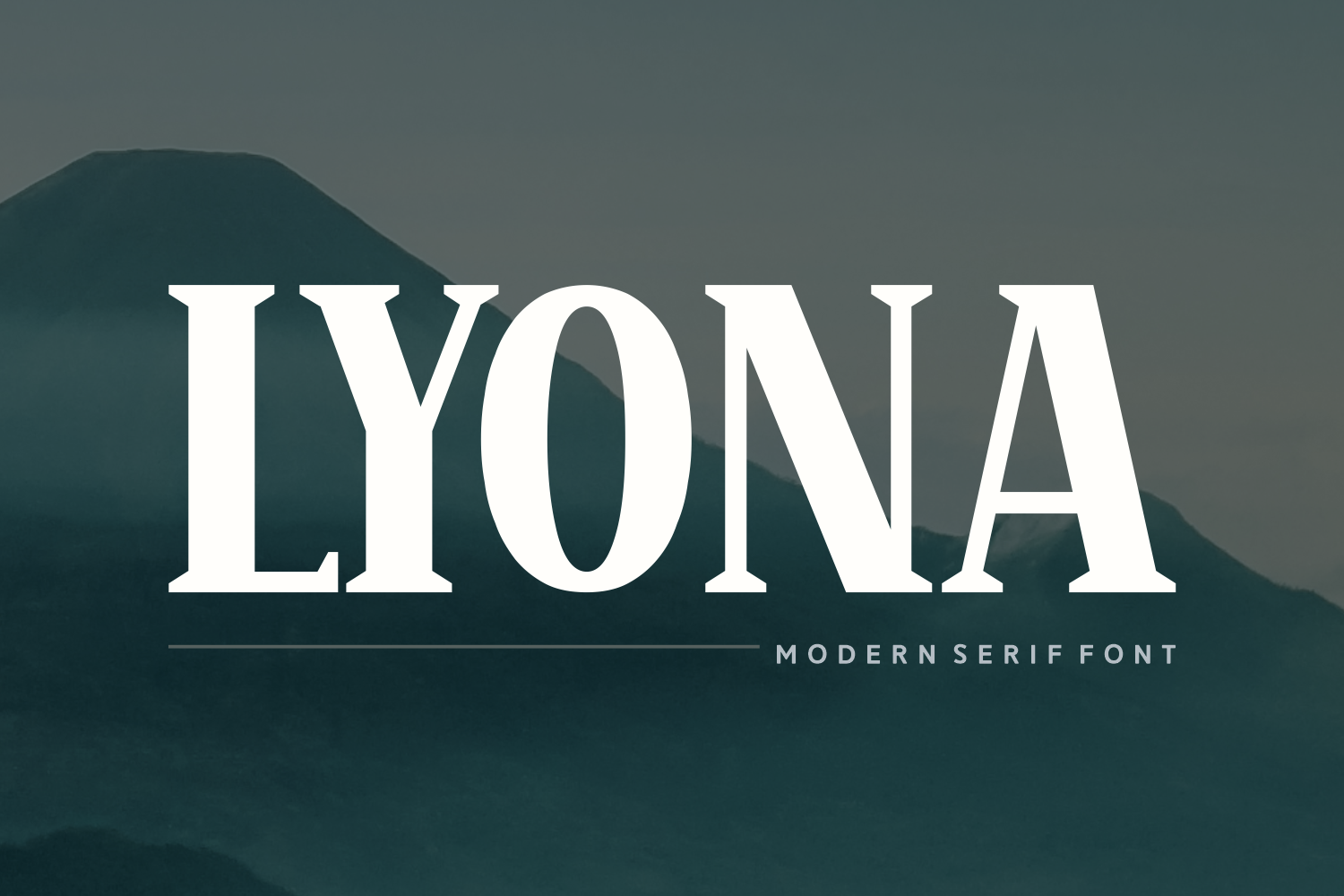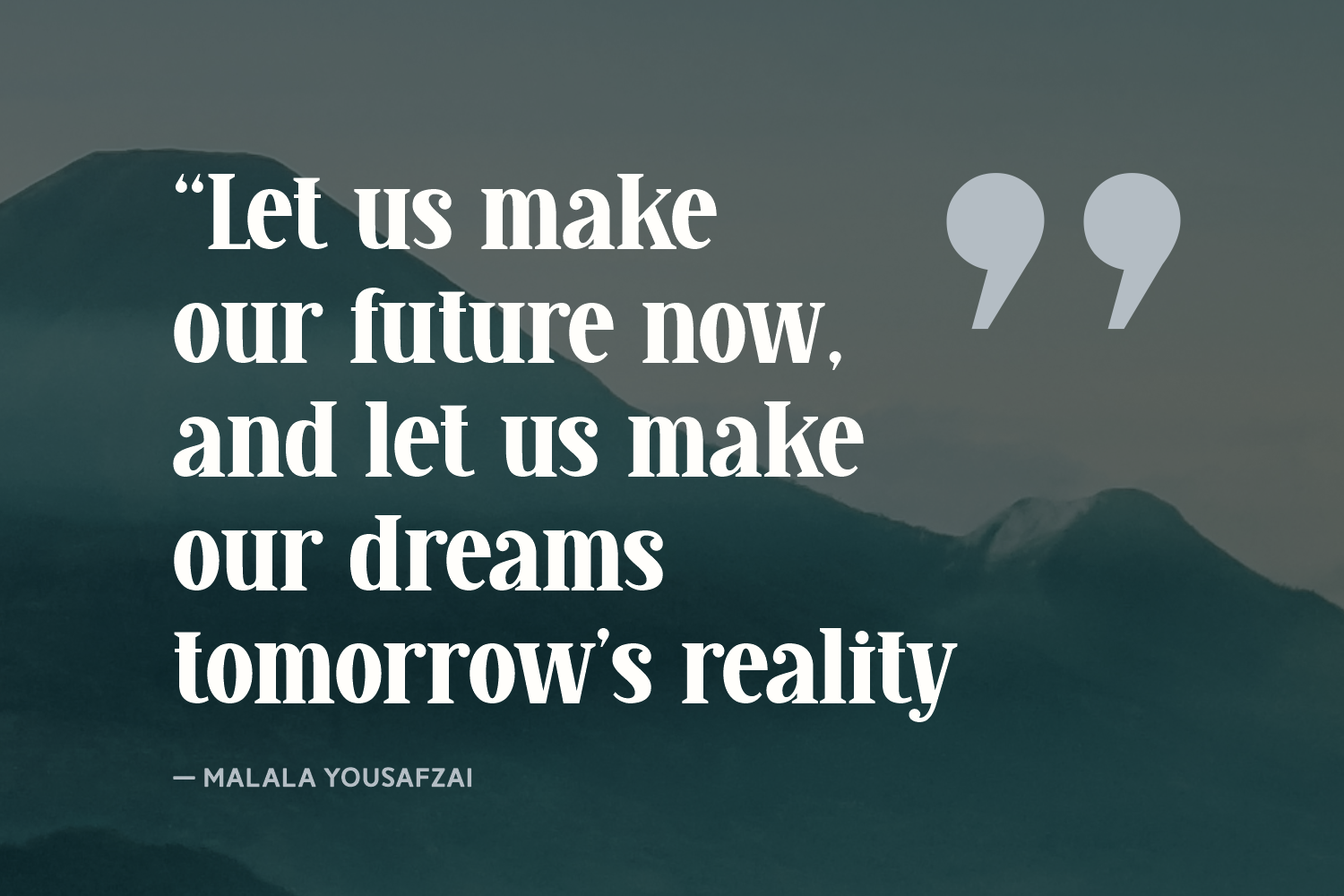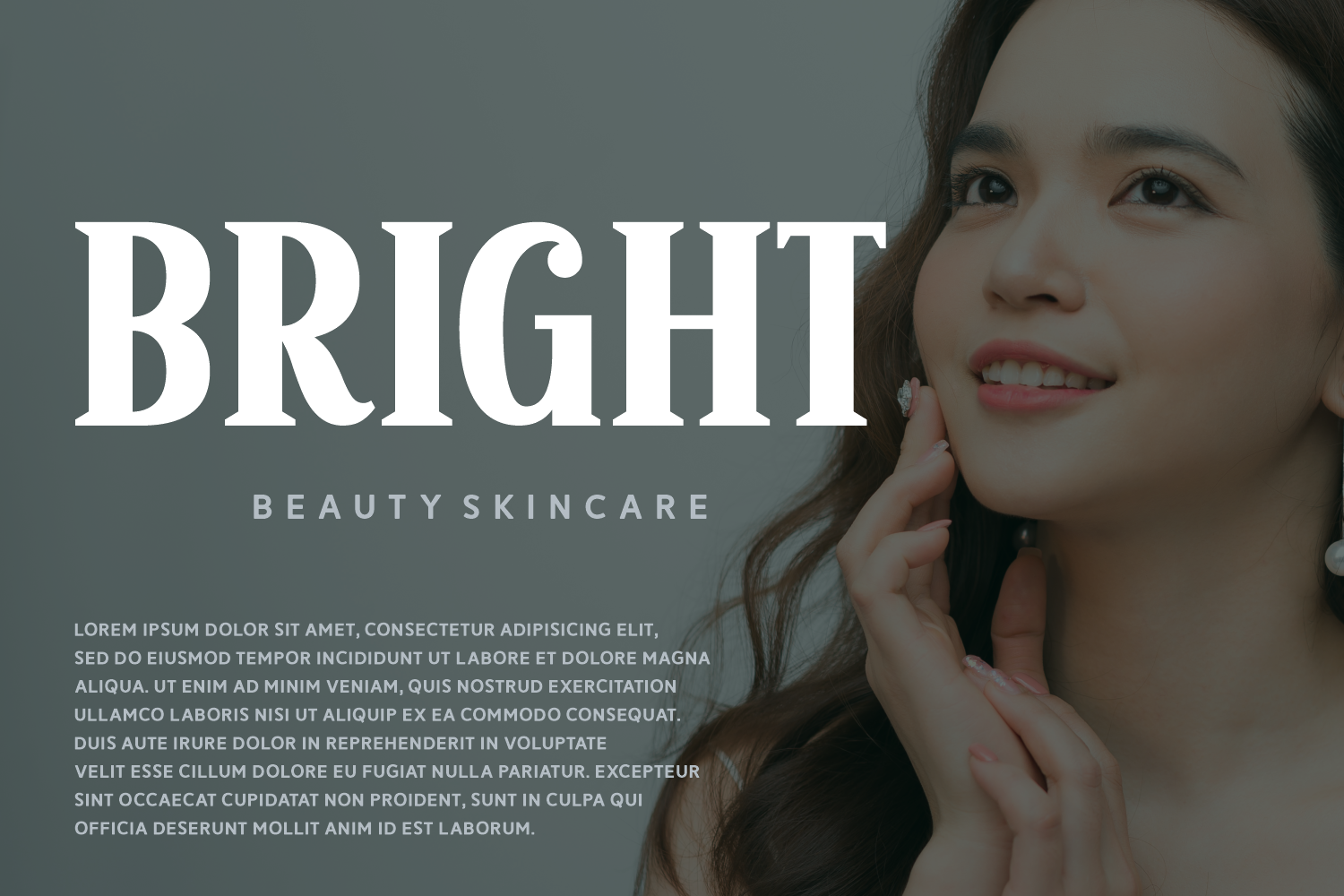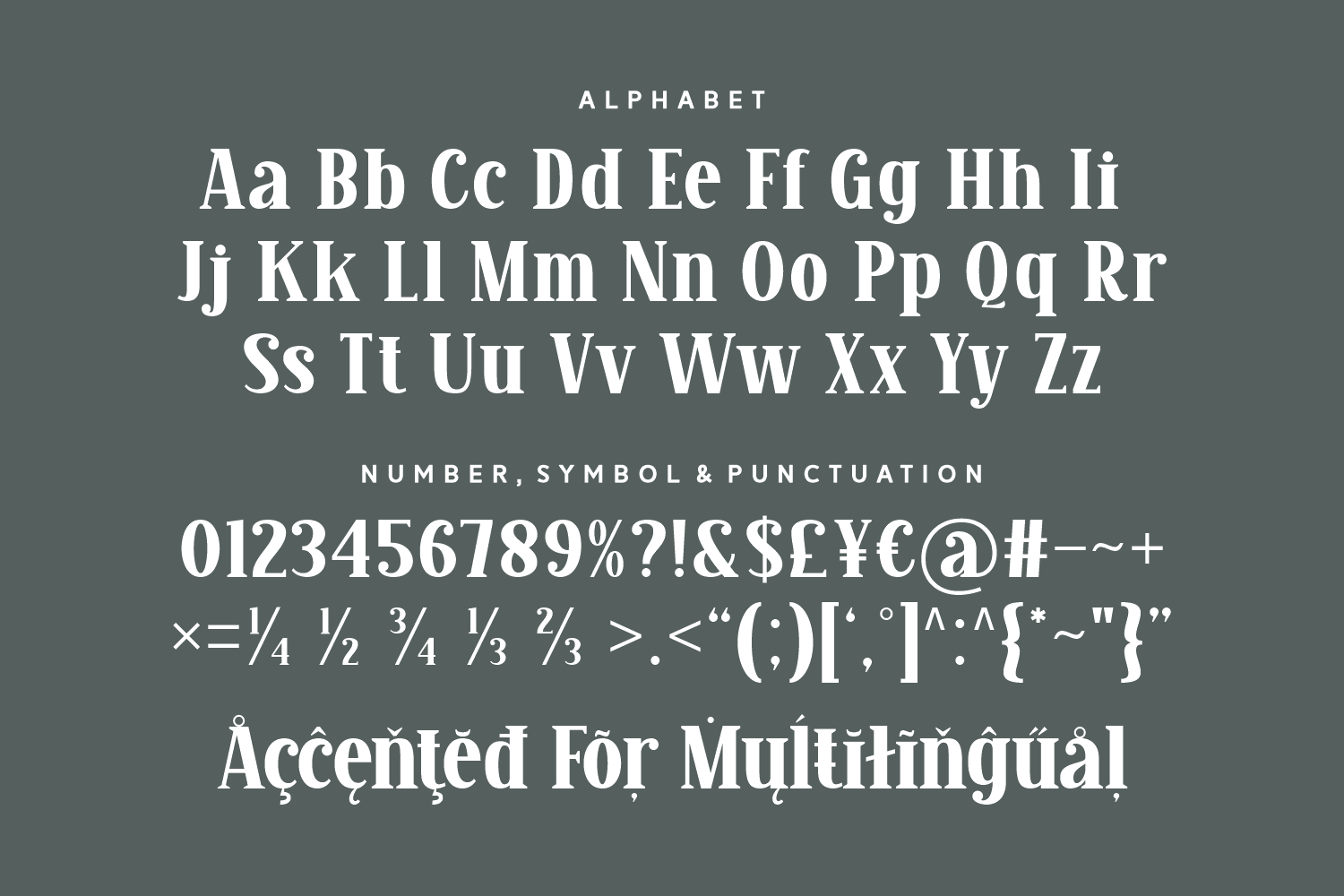
Lyona is a bold and confident modern serif font crafted for impact and elegance. Lyona balances traditional serif aesthetics with a fresh, contemporary edge—making your designs feel premium and unforgettable. Complete with multilingual support and a full range of punctuation, Lyona is ready to elevate any creative project.